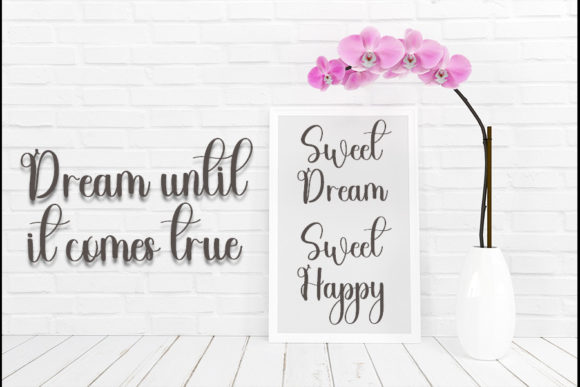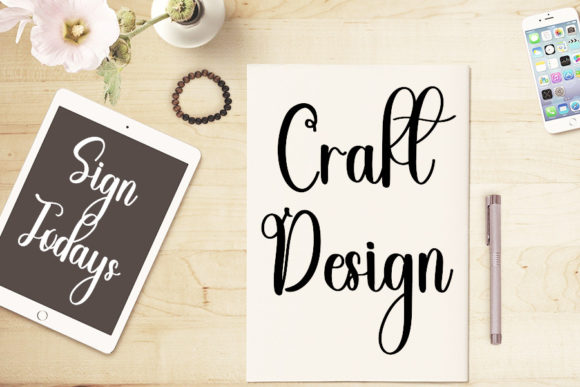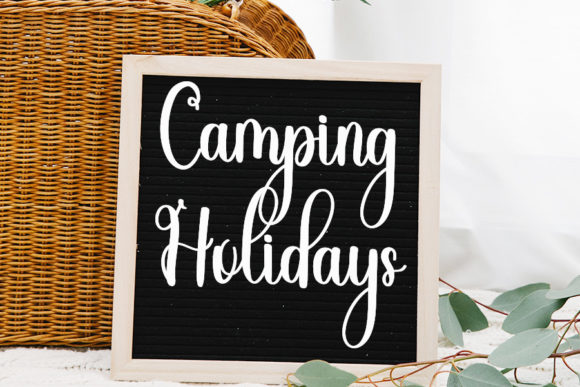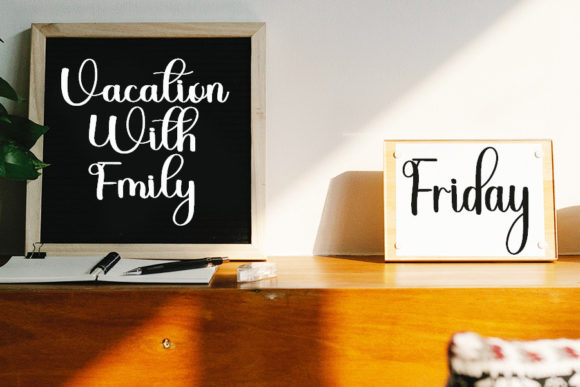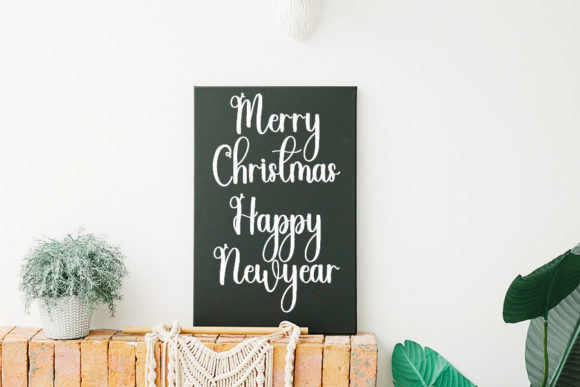
Barrystha Font: The Enchanting Handwritten Script to Add a Romantic Touch
In the world of typography, fonts play a crucial role in conveying the tone and personality of a design project. Among the numerous font options available, Barrystha stands out as an enchanting handwritten font that has captured the hearts of designers and crafters alike. This versatile script font is perfect for adding a romantic feel to various projects, ranging from greeting cards to headlines. In this article, we’ll dive into the world of Barrystha font, exploring its features, applications, and the magic it brings to your designs.
The Charm of Barrystha Font
Barrystha font is a beautiful, handwritten script that exudes elegance and sophistication. Its unique charm lies in its flowing strokes, delicate connections, and whimsical flair. This font is designed to evoke emotions and create a sense of warmth, making it perfect for projects that require a personal touch. Whether you’re creating a romantic greeting card, a wedding invitation, or a blog post, Barrystha font is sure to add a touch of magic to your design.
Features of Barrystha Font
Barrystha font boasts several features that make it a versatile and desirable choice for designers and crafters. Some of its notable features include:
• Handwritten script: Barrystha font is a genuine handwritten script that mimics the natural flow of handwriting.
• Flowing strokes: The font features smooth, flowing strokes that create a sense of continuity and elegance.
• Delicate connections: The connections between letters are delicate and whimsical, adding to the font’s charm.
• Whimsical flair: Barrystha font has a touch of whimsy, making it perfect for creative and artistic projects.
• Versatile: This font can be used for a wide range of applications, from greeting cards to headlines.
Applications of Barrystha Font
Barrystha font is a versatile script font that can be used for various design projects. Some of its popular applications include:
• Greeting cards: Add a romantic touch to your greeting cards with Barrystha font.
• Wedding invitations: Make your wedding invitations truly special with this beautiful script font.
• Headlines: Use Barrystha font to create eye-catching headlines for your blog posts, articles, or advertisements.
• Logos: Create a unique and memorable logo for your brand with Barrystha font.
• Social media graphics: Add a touch of elegance to your social media graphics with this beautiful font.
Tips for Using Barrystha Font
To get the most out of Barrystha font, here are some tips to keep in mind:
• Pair with complementary fonts: Pair Barrystha font with complementary fonts to create visual interest and hierarchy.
• Use for headlines and titles: Use Barrystha font for headlines and titles to create a lasting impression.
• Experiment with colors: Experiment with different colors to find the perfect match for your design.
• Keep it simple: Don’t over-accessorize your design – keep it simple and elegant to let the font shine.
Barrystha font is an enchanting handwritten script that adds a romantic touch to any design project. Its unique charm, flowing strokes, and delicate connections make it perfect for a wide range of applications. With its versatility and elegance, Barrystha font is sure to become a favorite among designers and crafters. Whether you’re creating a greeting card, a wedding invitation, or a headline, Barrystha font is the perfect choice to add a touch of magic to your design.